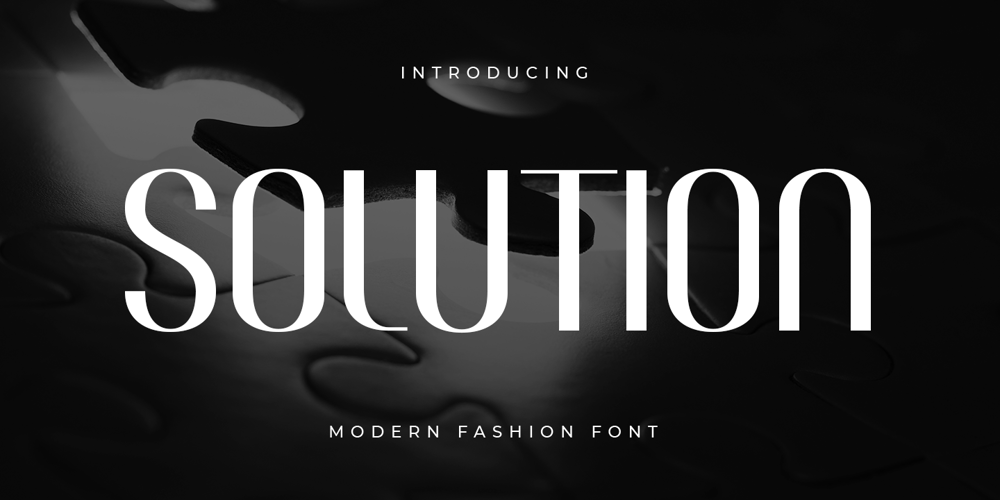
Solution
Solution font
Solution Font Family was designed by Zamroni Hamzah and published by Sensatype Studio. Solution contains 1 styles and family package options. Solution is a Modern Fashion Sans Serif Font with Sharp shape make your design look classy and elegantA new San Serif Font that we created special for Headline, Title and more stand out typography needs, with beauty characters that will add your variations. It’s so perfect to add your style and headline overview. And specially for Fashion font, we crafted for unique style and modern feels so enjoy to create any project that will show your main idea out.Solution Modern Fashion Sans Serif Font ready with: Any options to get creative variations Preview as a inspirations that you can do with Solution font Ready with All characters Wish you enjoy our font. 🙂